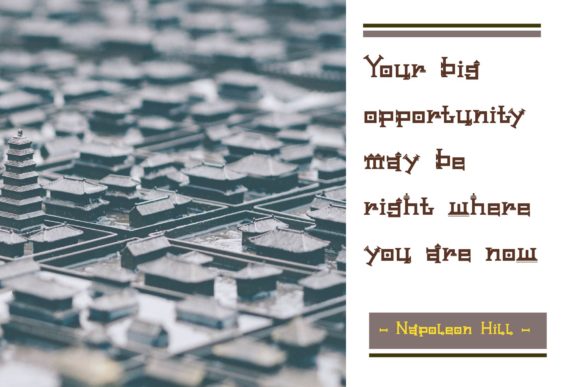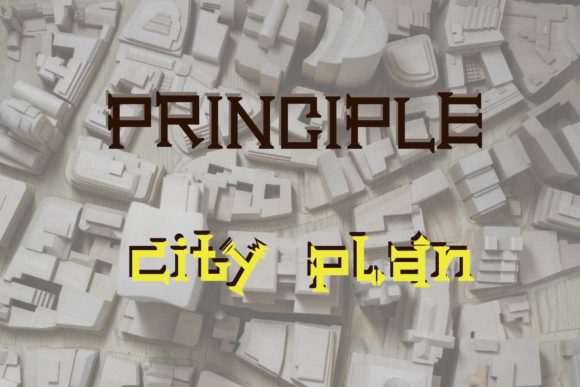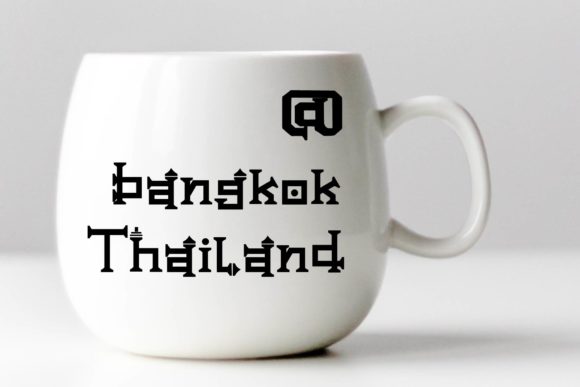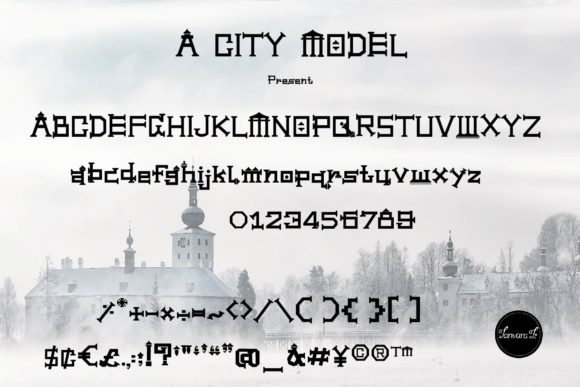
A City Model Font: The Ultimate Game-Changer for Creative Designs
Have you ever found yourself stuck in a creative rut, staring at a blank canvas or a blank page, wondering where to start? We’ve all been there. But then, something magical happens. A spark of inspiration strikes, and suddenly the world around you becomes a canvas of endless possibilities. For designers, this moment is a dream come true, and it’s exactly what A City Model Font is designed to evoke.
A City Model Font is a unique display font that celebrates the beauty of abstract shapes in all their eclectic glory. Its purpose is to add a touch of whimsy and personality to your designs, making them stand out from the crowd. And for designers, this font is a valuable addition to their toolkit, offering a fresh perspective and a new way to express their creativity.
A City Model Font Key Features
- Unique Characteristics: A City Model Font features a modern, urban aesthetic with geometric shapes and clean lines, perfect for cityscape and urban-themed designs.
A City Model Font Review
Overall, I think A City Model Font has some great qualities that make it a solid choice for designers, but it also has some limitations that might hold it back from being a top contender.
- Unique aesthetic: The font has a distinctive, urban feel that’s perfect for designs focused on cityscapes or modern architecture.
- Good legibility: The font is easy to read, even at smaller sizes, making it a great choice for body text or captions.
- Wide language support: A City Model Font supports a wide range of languages, making it a great choice for international designs.
- Limited font weight options: The font only comes in a few weights, which can make it difficult to create complex typography.
- Lack of italic and bold styles: The font is missing italic and bold styles, which can limit its versatility.
- Not ideal for small text: While the font is legible at larger sizes, it can become pixelated and difficult to read at smaller sizes.
Overall, I think A City Model Font is a solid choice for designers looking for a unique, urban aesthetic. However, its limitations might make it less suitable for complex designs or projects that require a wide range of font styles.
A City Model Font is ideal for urban-themed designs, city maps, and architecture projects. To get the most out of it, use it in combination with bold lines, bright colors, and high contrast backgrounds. Experiment with different font sizes and styles to create a visually appealing design.
Q: What is the recommended font size for A City Model Font?
A: The recommended font size for A City Model Font is between 12pt and 24pt. However, the optimal font size may vary depending on the specific project requirements and design context. Experiment with different font sizes to achieve the desired visual effect.